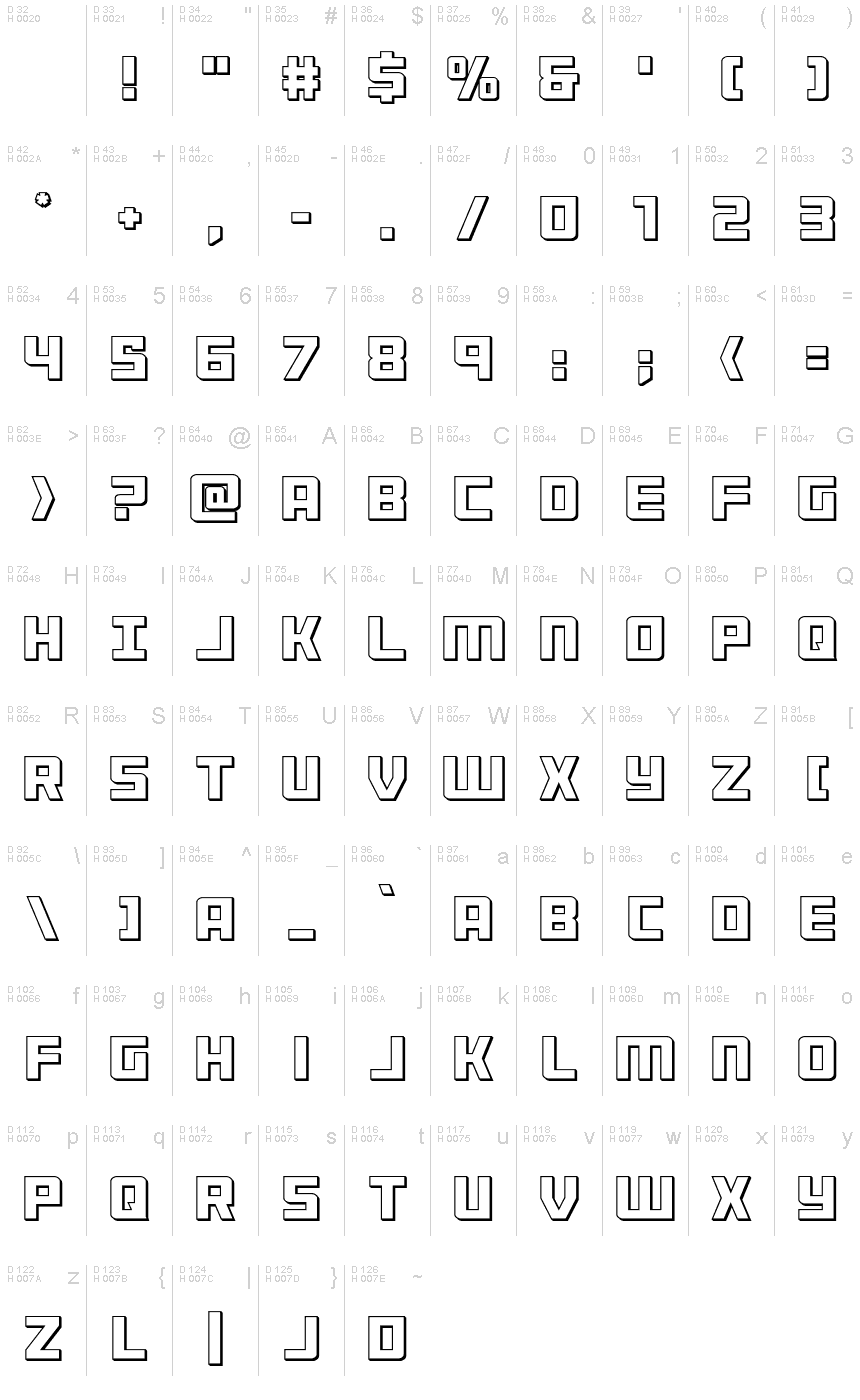
Brave Phoenix 3D is a bold and expanded font from the Brave Phoenix font family designed by Iconian Fonts. With its sleek and futuristic 3D style, this display font is perfect for projects that require a strong and modern look.
Use it for eye-catching headlines, logos, or posters to make a bold statement. Its techno-inspired design adds a touch of sophistication to any creative project. Whether you're working on advertising campaigns, gaming graphics, or sci-fi themed designs, Brave Phoenix 3D will elevate your visuals to new heights.